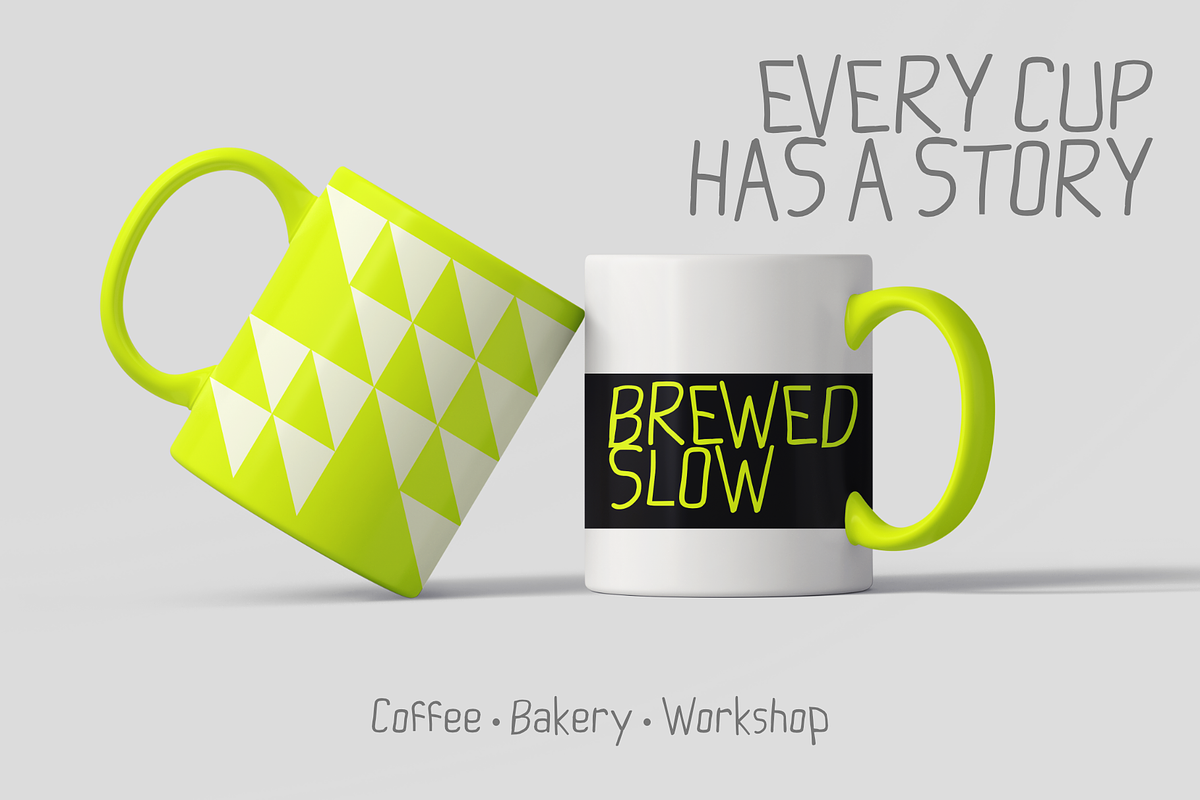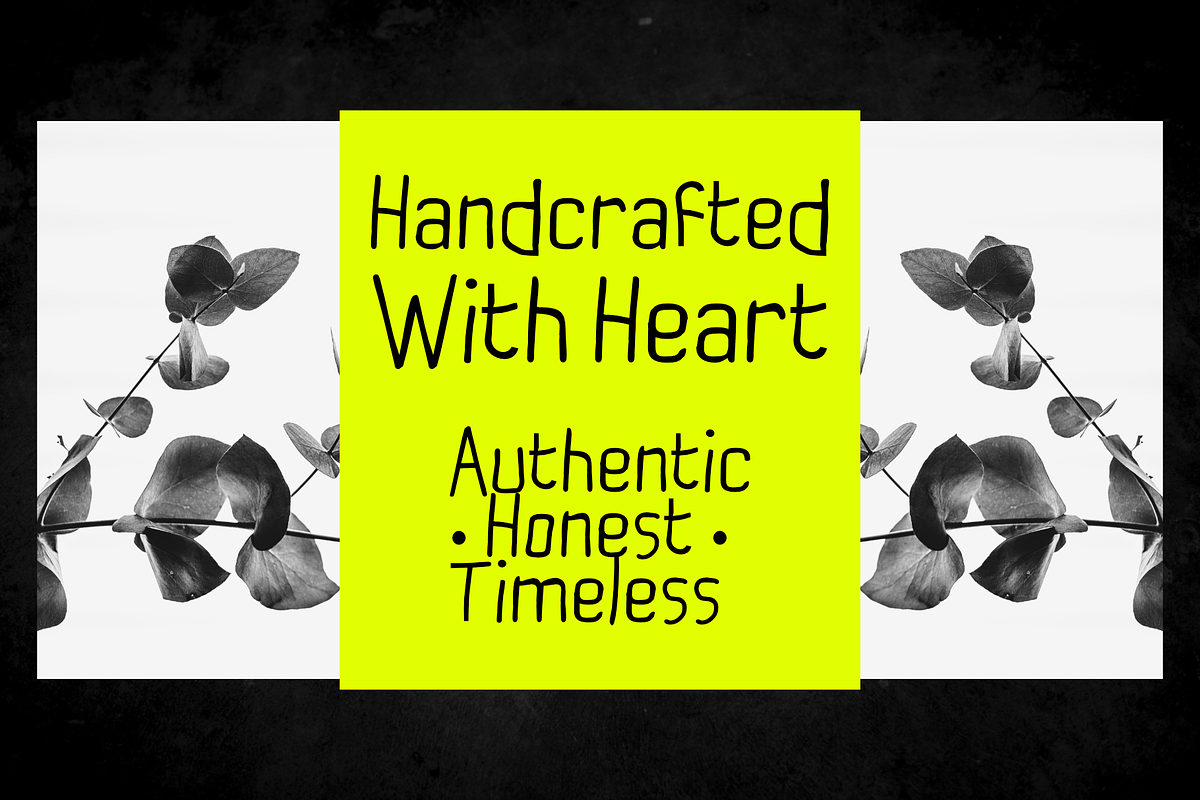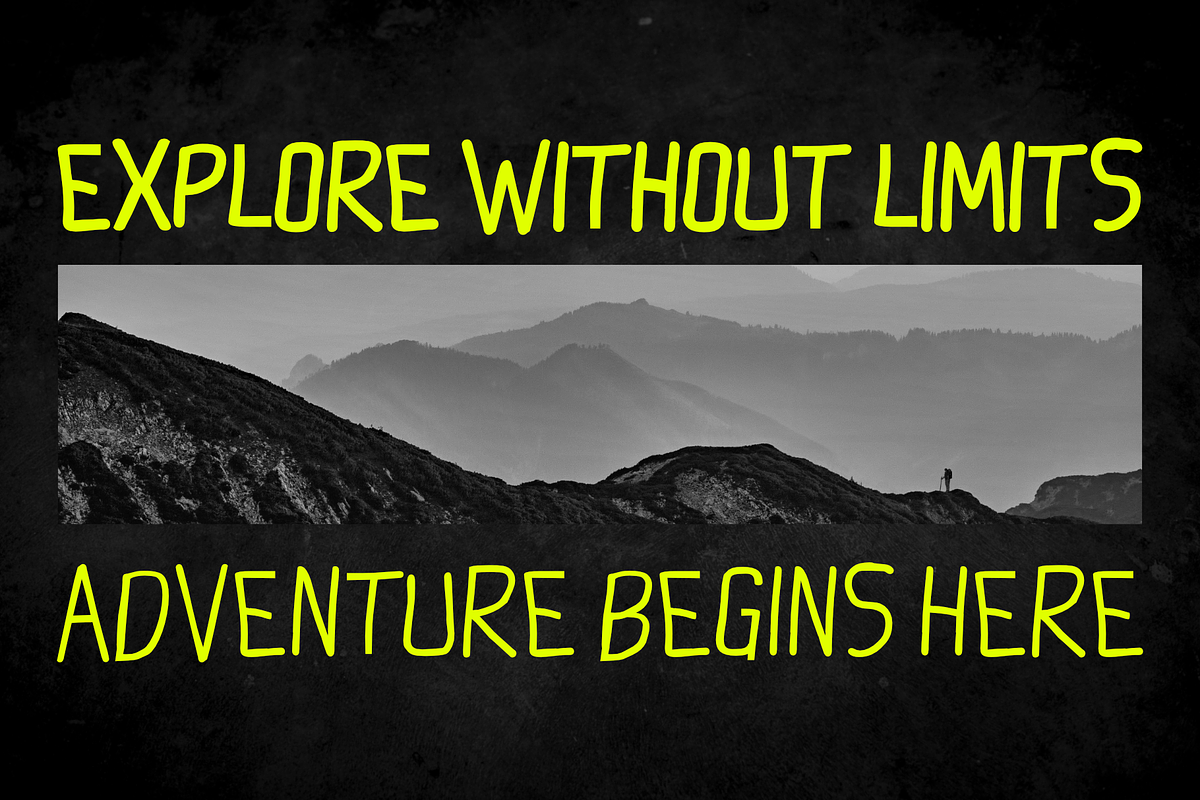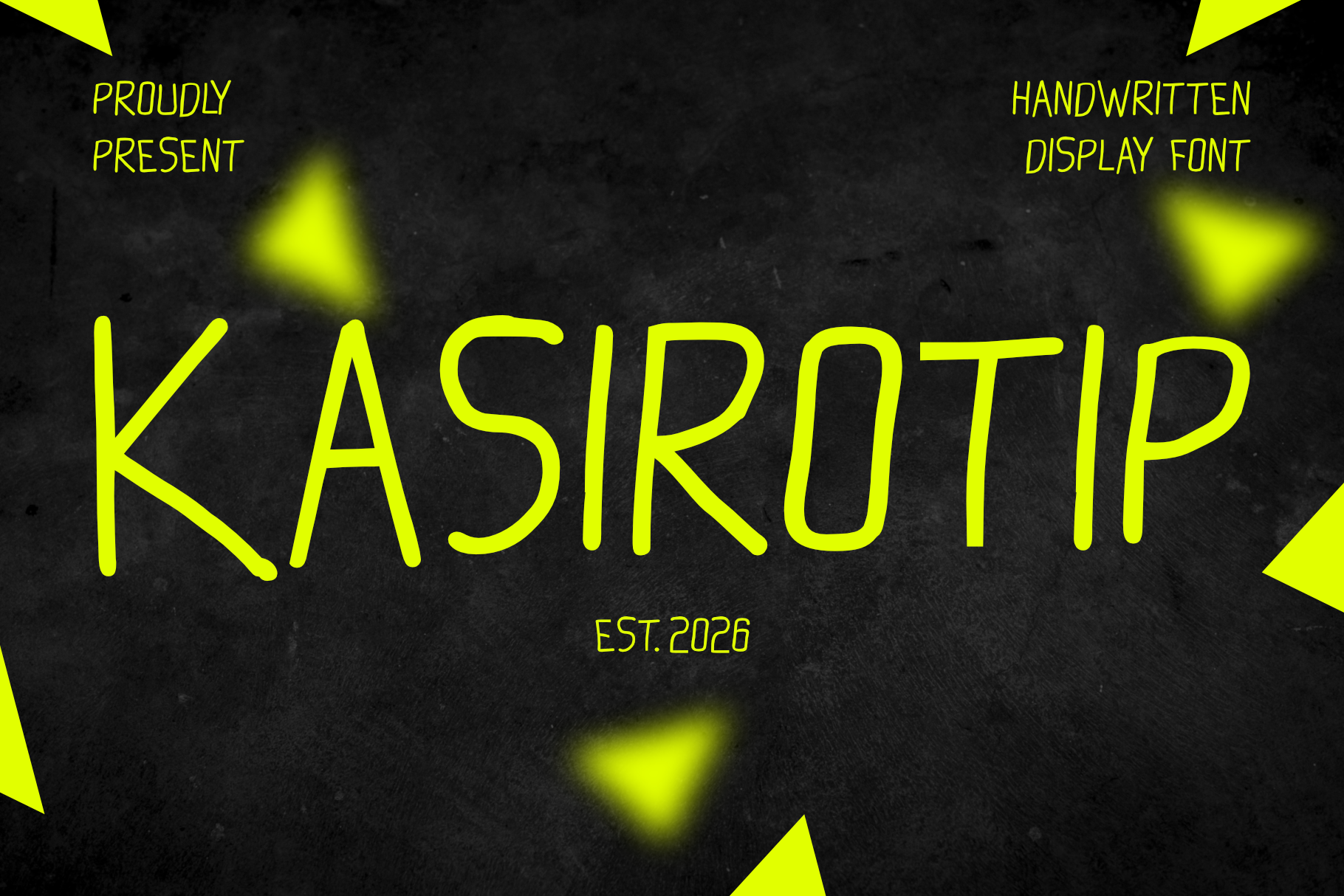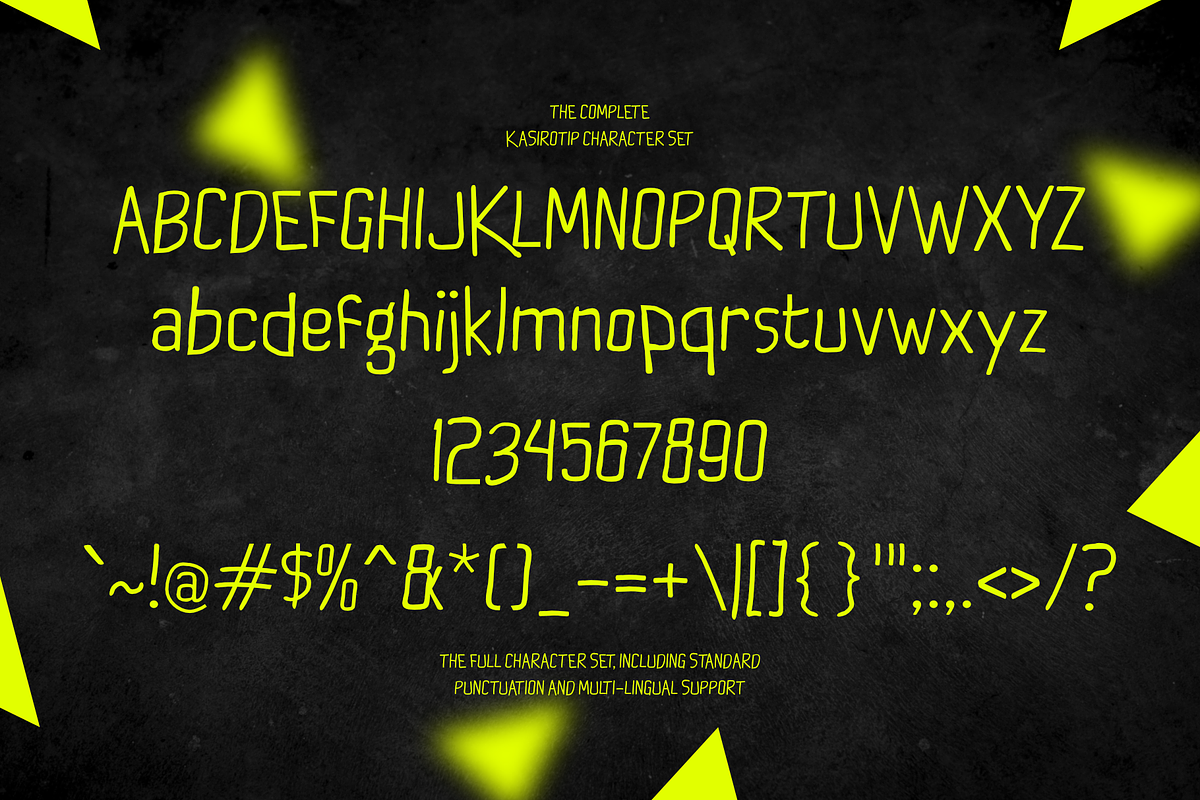
Kasirotip Vintage Handwritten Font
KASIROTIP is a handcrafted handwritten display font that brings a warm, authentic, and timeless personality to your designs. Inspired by vintage signage, rustic branding, and artisan craftsmanship, this font features tall, clean letterforms with a naturally imperfect touch that creates an effortless handmade feel.
Whether you're designing logos, packaging, labels, apparel, posters, coffee shop branding, or social media graphics, KASIROTIP delivers a charming vintage aesthetic while remaining highly legible. Its simple yet distinctive character makes it a versatile choice for creative projects that need a genuine handcrafted look.
Perfect for branding that tells a story, KASIROTIP adds a touch of nostalgia and originality to every design.